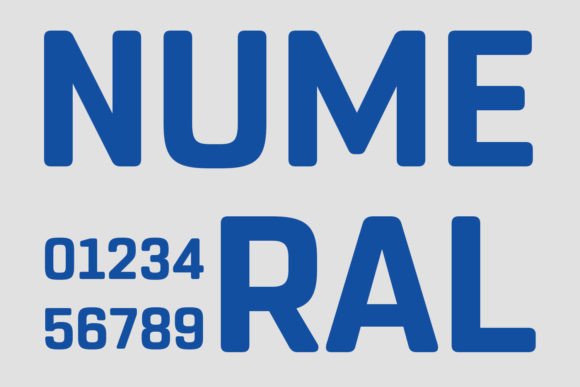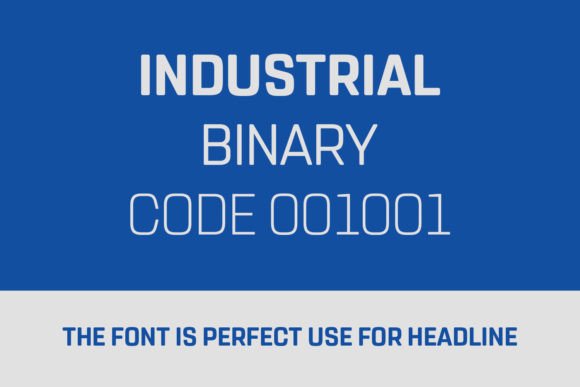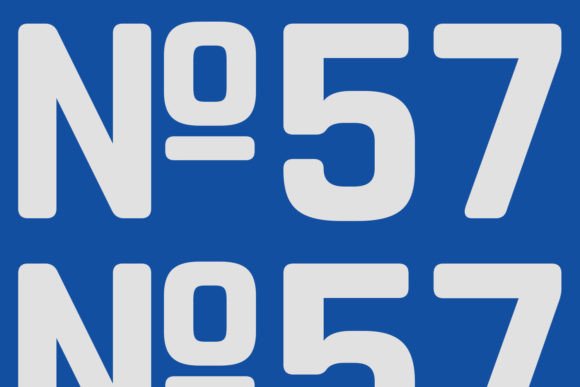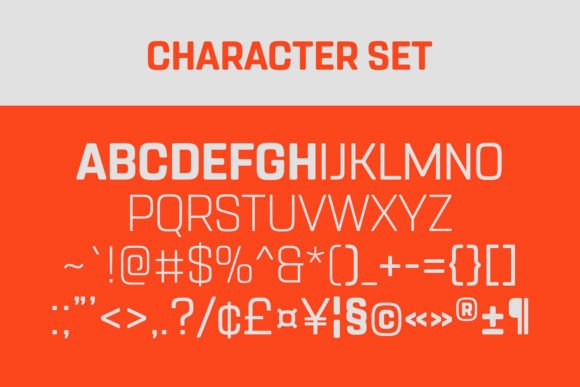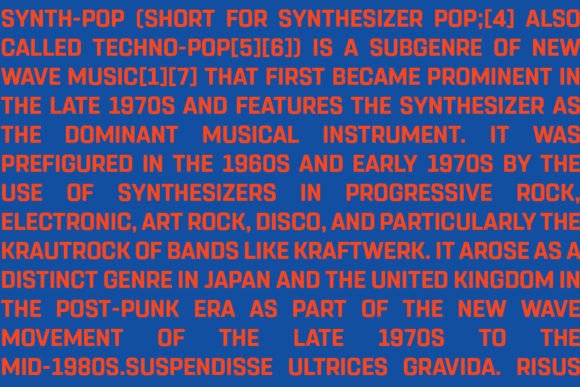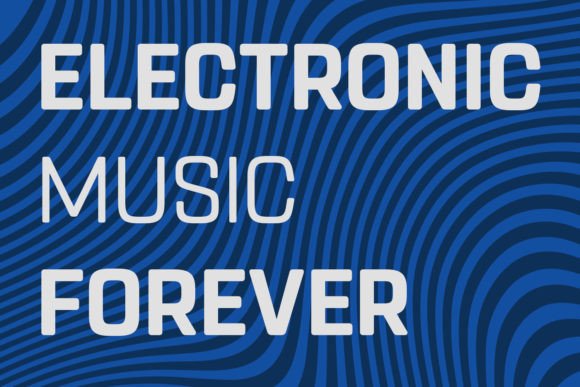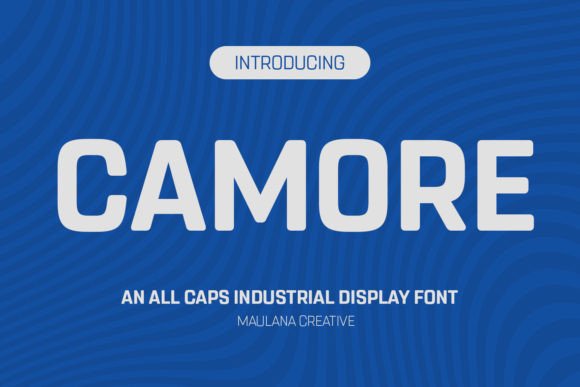
Discover the Bold and Modern Camore Font: Elevate Your Designs with its Unique All-Caps Sans Serif Style
In the world of typography, fonts play a crucial role in making or breaking a design. As a designer or crafter, you’re constantly on the lookout for fresh and exciting fonts to add to your library. If you’re searching for a font that can instantly elevate your creations, look no further than Camore Font. This cool and unique all-caps sans serif font is about to become your new go-to, regardless of the topic or project you’re working on.
What Makes Camore Font Stand Out?
Camore Font boasts a bold and modern design that is sure to turn heads. Its all-caps sans serif style gives it a clean and sleek look that’s perfect for a wide range of applications, from digital media to print materials. The font’s uniqueness lies in its ability to add a touch of sophistication and elegance to any design, making it an excellent choice for designers who want to create something truly special.
Key Features of Camore Font
- All-caps design: Camore Font features an all-caps design that exudes confidence and style.
- Sans serif style: The font’s sans serif style gives it a modern and clean look that’s perfect for digital media.
- Unique and cool: Camore Font’s unique design makes it stand out from other fonts, ensuring your designs will never go unnoticed.
- Versatile: This font can be used for a wide range of projects, from branding and advertising to packaging and more.
Why You Need Camore Font in Your Library
As a designer or crafter, you know how important it is to have a diverse font library at your disposal. Camore Font is an incredible asset to your collection, offering a fresh and exciting alternative to more traditional fonts. With Camore Font, you can:
- Elevate your designs: Add a touch of sophistication and elegance to your creations with Camore Font’s unique style.
- Stand out from the crowd: With its bold and modern design, Camore Font ensures your designs will grab attention and leave a lasting impression.
- Save time: Having a versatile font like Camore Font in your library means you’ll spend less time searching for the perfect font for your project.
How to Use Camore Font in Your Designs
Camore Font is incredibly easy to use and can be applied to a wide range of design projects. Here are a few ideas to get you started:
- Branding and logos: Use Camore Font to create a bold and memorable logo for your brand.
- Advertising and marketing materials: Add a touch of sophistication to your ads and marketing materials with Camore Font.
- Packaging design: Use Camore Font to create eye-catching packaging that stands out on store shelves.
- Digital media: Apply Camore Font to your digital projects, such as website headers, social media graphics, and more.
In conclusion, Camore Font is an exceptional addition to any designer’s or crafter’s font library. Its unique all-caps sans serif style, bold and modern design, and versatility make it an invaluable asset for a wide range of projects. Whether you’re looking to elevate your designs, stand out from the crowd, or simply save time, Camore Font is the perfect choice. So why wait? Add Camore Font to your library today and discover a world of limitless design possibilities!